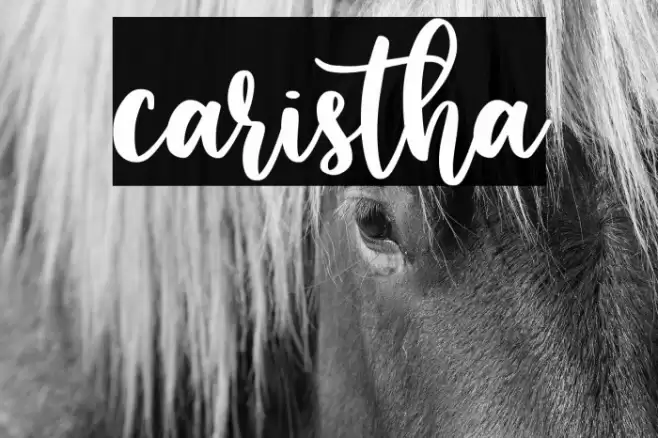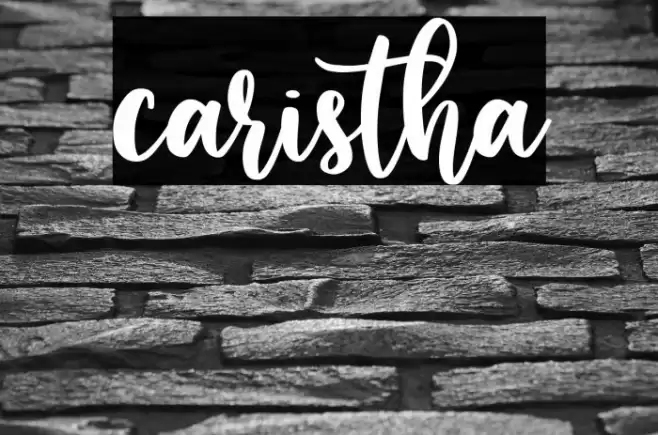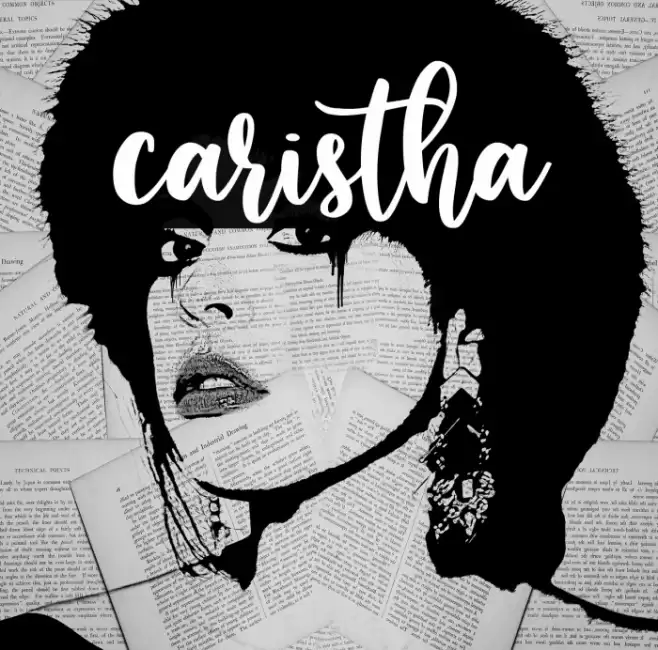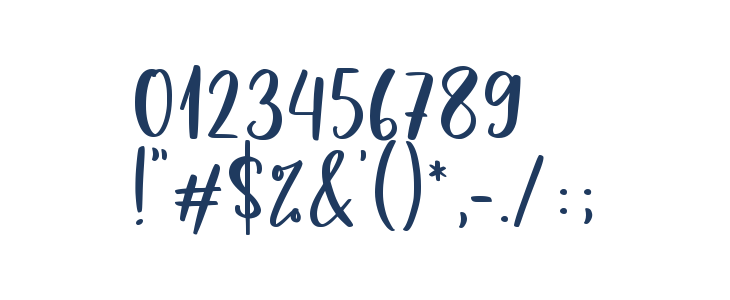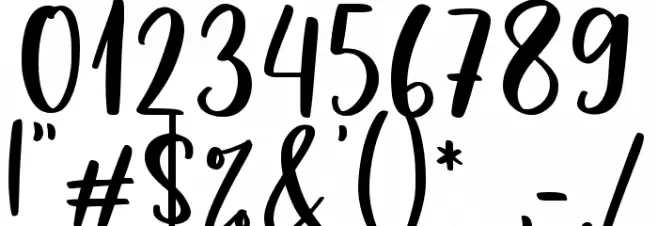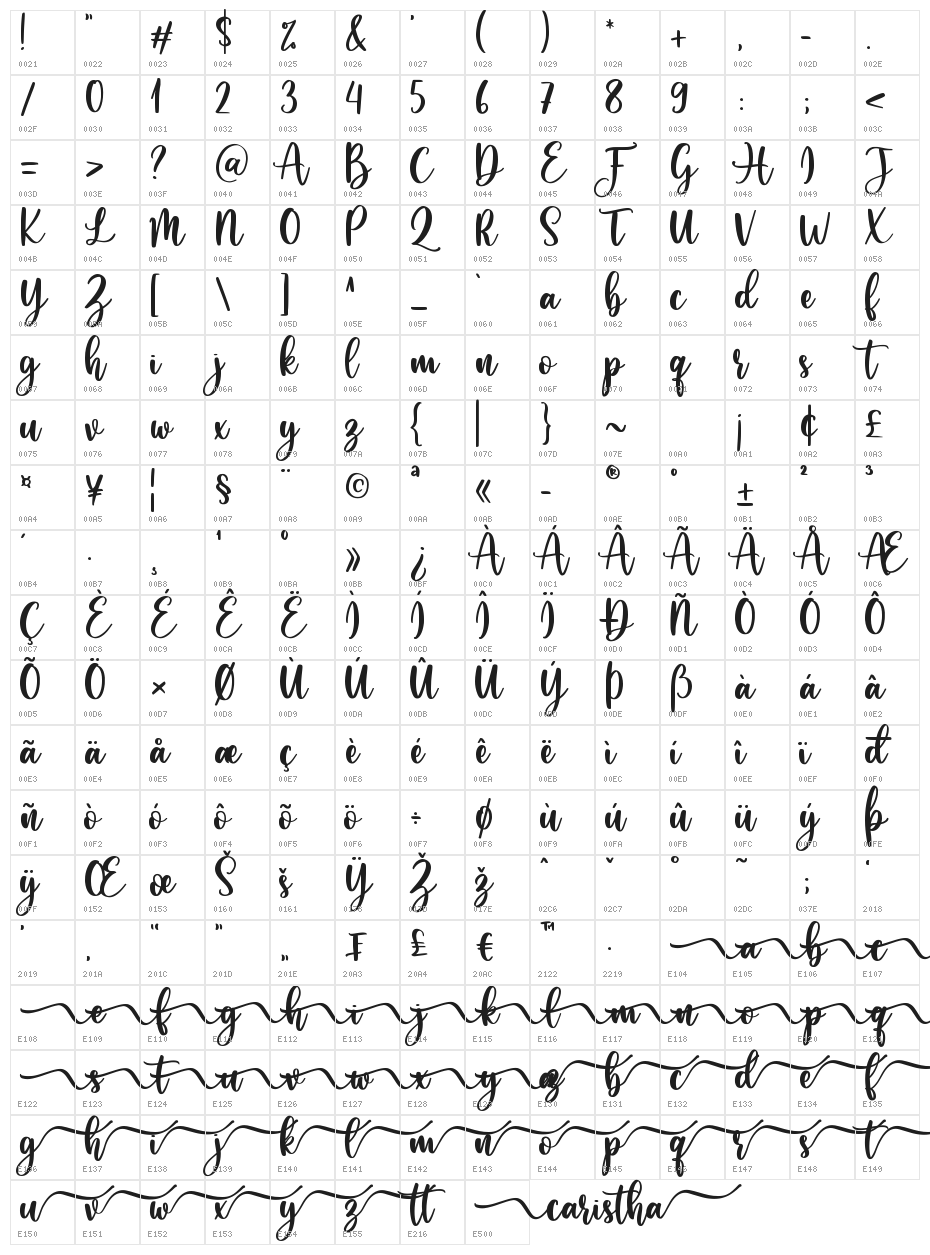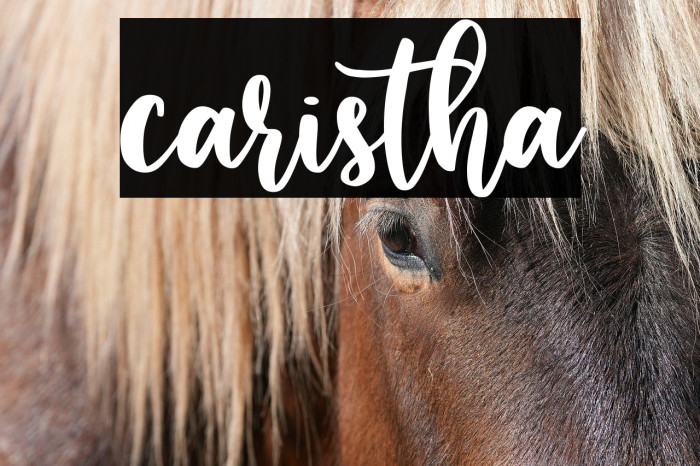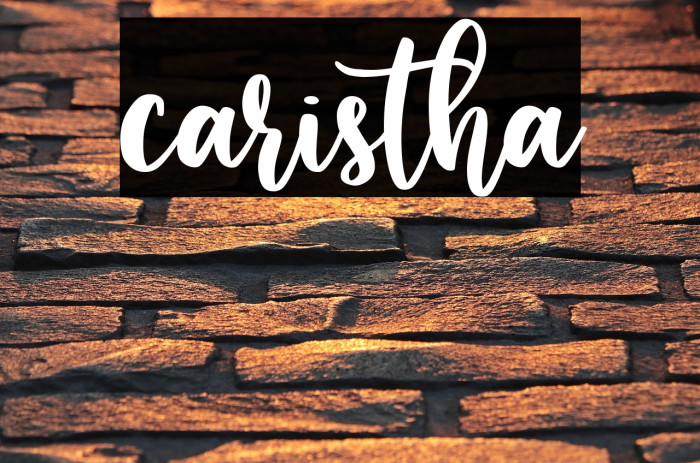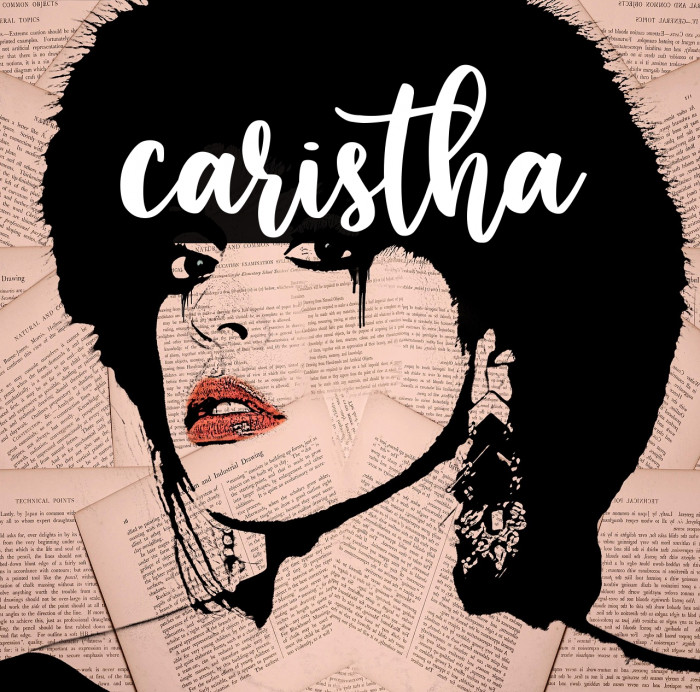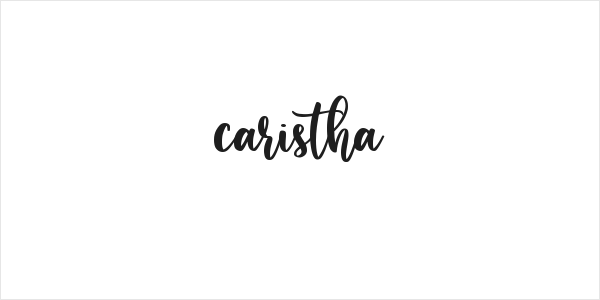
caristha Font
caristha Description
This font exudes a playful and elegant script style, characterized by its flowing, cursive letterforms. The uppercase letters are bold and expressive, with a consistent stroke width that gives a sense of uniformity and balance. The lowercase letters maintain the same fluidity, with some characters featuring distinctive loops and swashes that add a touch of sophistication. The numerals are clear and legible, matching the overall style of the alphabet. Special characters are designed with the same attention to detail, ensuring they blend seamlessly with the rest of the font. This font is perfect for projects that require a personal, handwritten touch, while still maintaining a professional appearance.
A playful and elegant script font with flowing, cursive letterforms from Regular fonts.
- Proposed Projects: Ideal for wedding invitations, greeting cards, branding, and social media graphics.
- Use Case: Logos, Invitations, Social Media